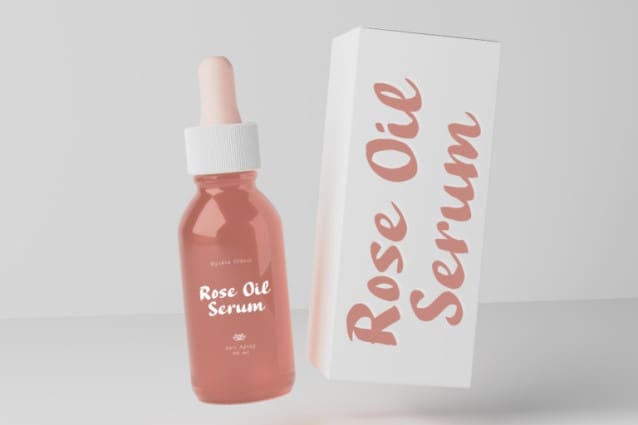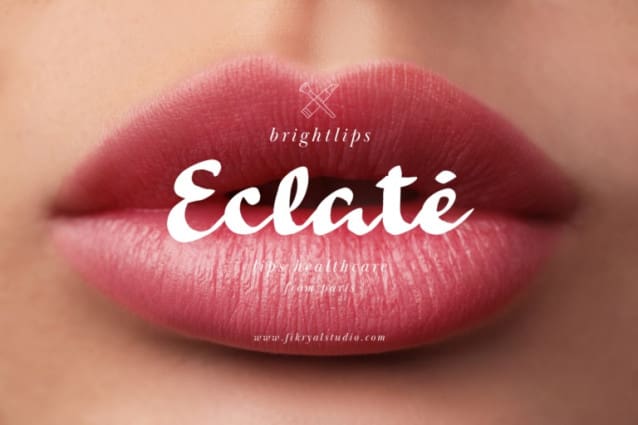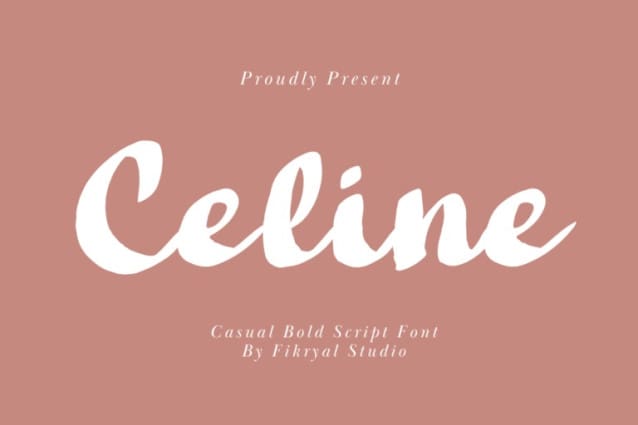
Celine Script Font
Celine Script Font – Casual Bold Script is a font that features a relaxed but still elegant handwriting style. With bold, bold lines and flowing letterforms, this font gives off a vibrant, youthful feel. Each letter is designed with details that enhance its character, creating an attractive and memorable appearance.
The advantage of Celine Script – Casual Bold Script is its ability to add a touch of personality and warmth to your design. Suitable for various creative projects such as logo design, branding, posters, greeting cards, and many more. Its presence can provide a different and attractive feel for design observers and readers. With a combination of bold bold lines and soft shapes, Celine – Casual Bold Script is the perfect choice to add a memorable touch to each of your design works.